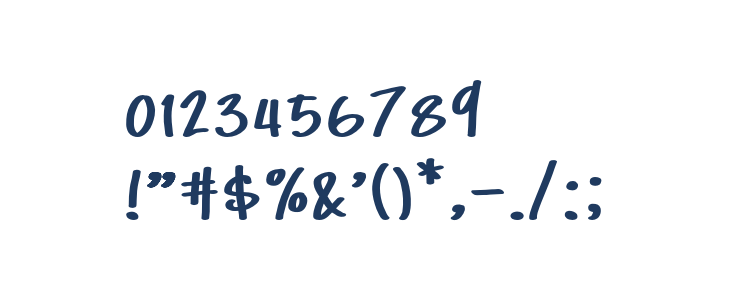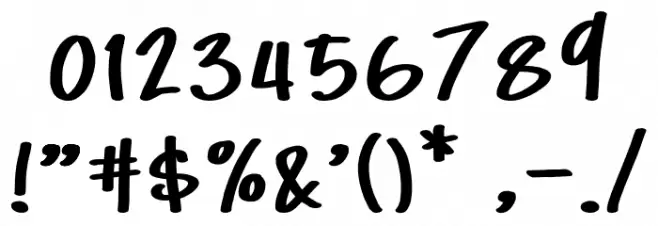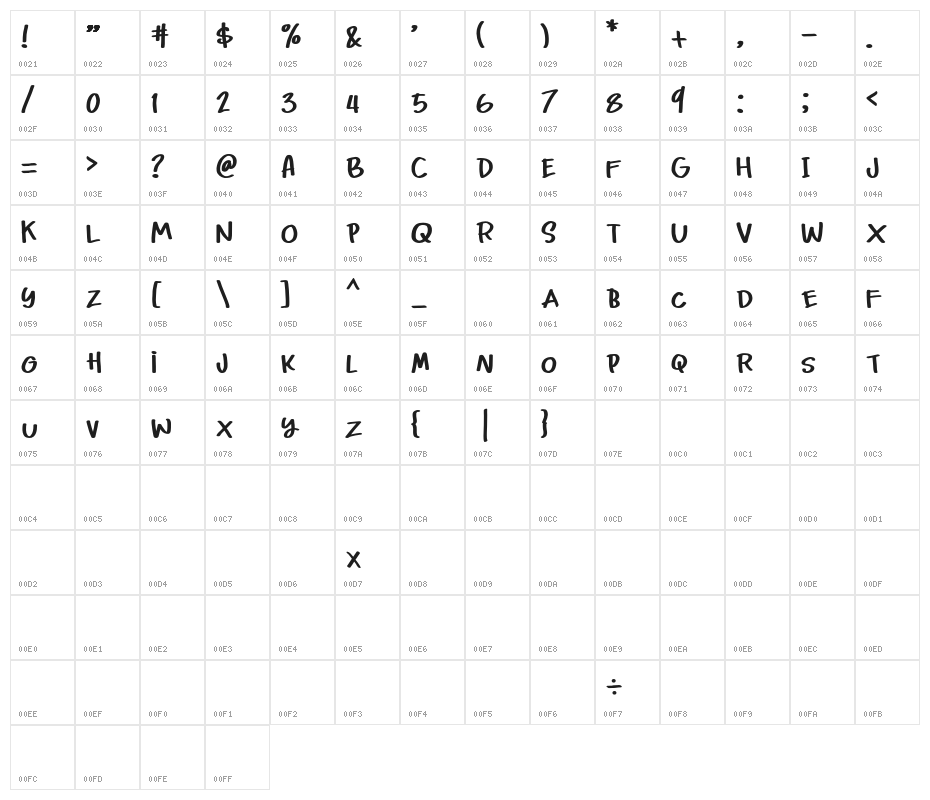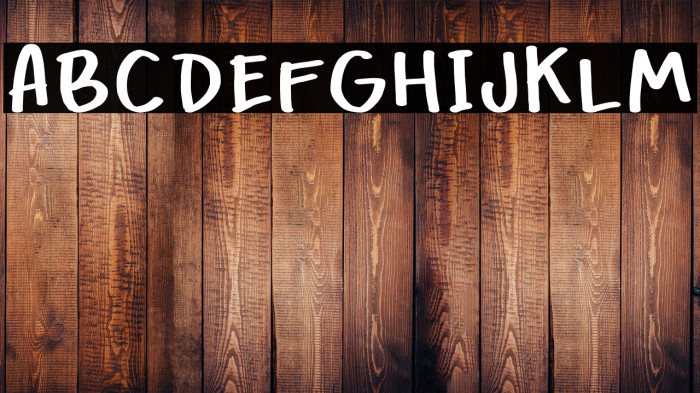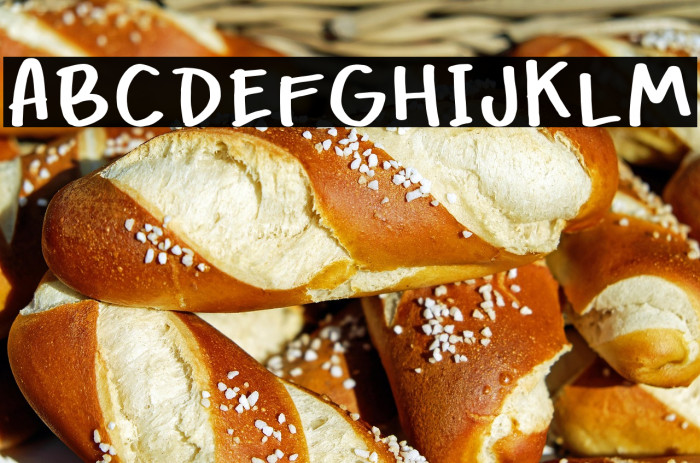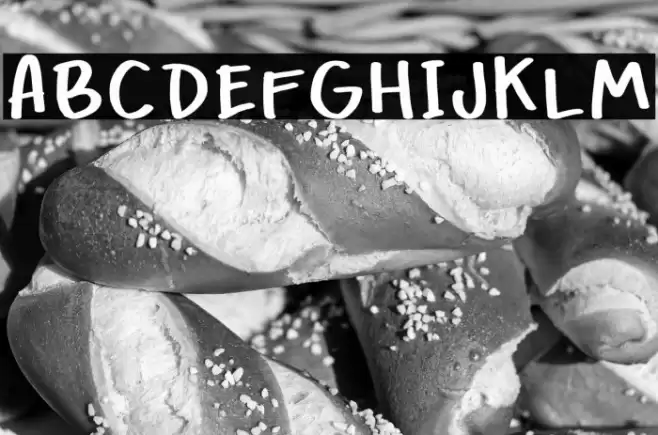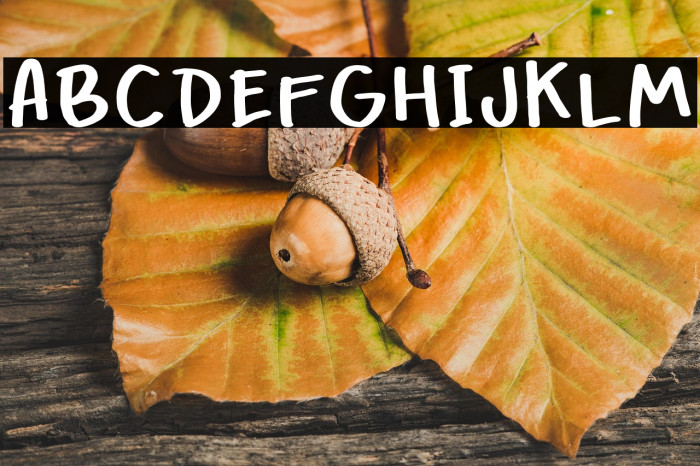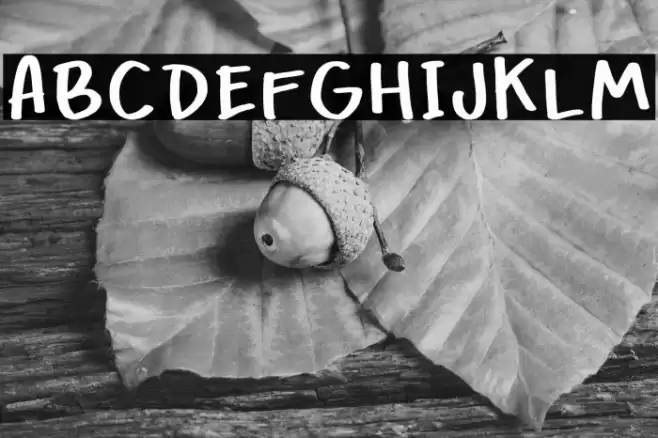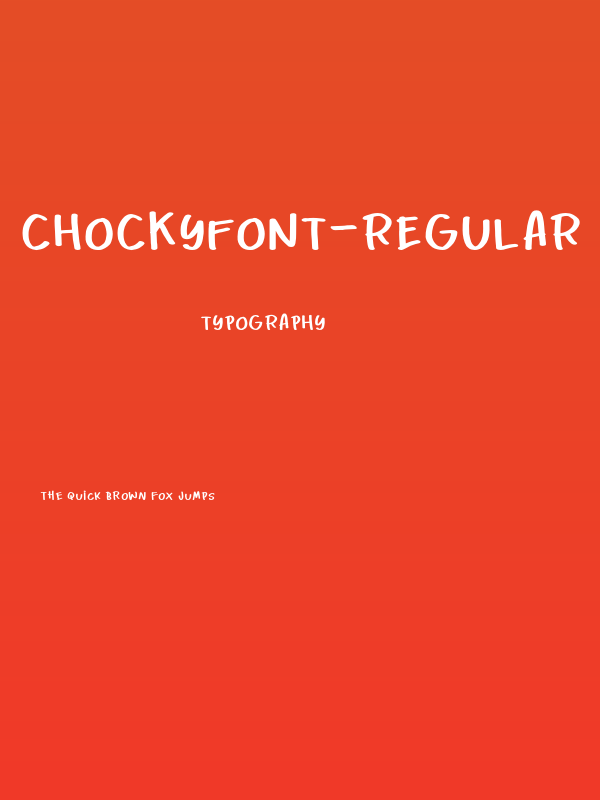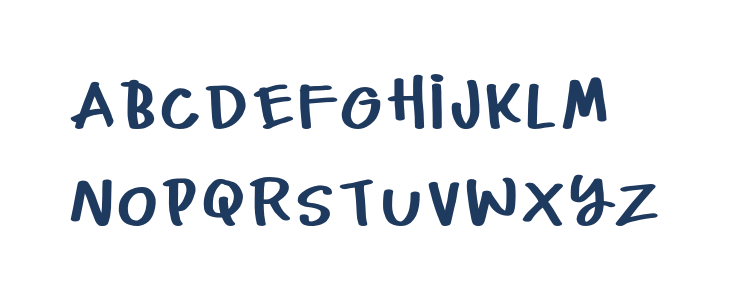
ChockyFont-Regular Font
ChockyFont-Regular Description
This playful and energetic font features a handwritten style with bold, rounded strokes. The characters are slightly irregular, giving it a casual and friendly appearance. The uppercase and lowercase letters maintain a consistent flow, while the numerals and special characters complement the overall design. Its informal and approachable nature makes it suitable for projects that aim to convey warmth and creativity.
| Proposed Projects | Ideal for children's books, greeting cards, playful branding, and social media graphics. |